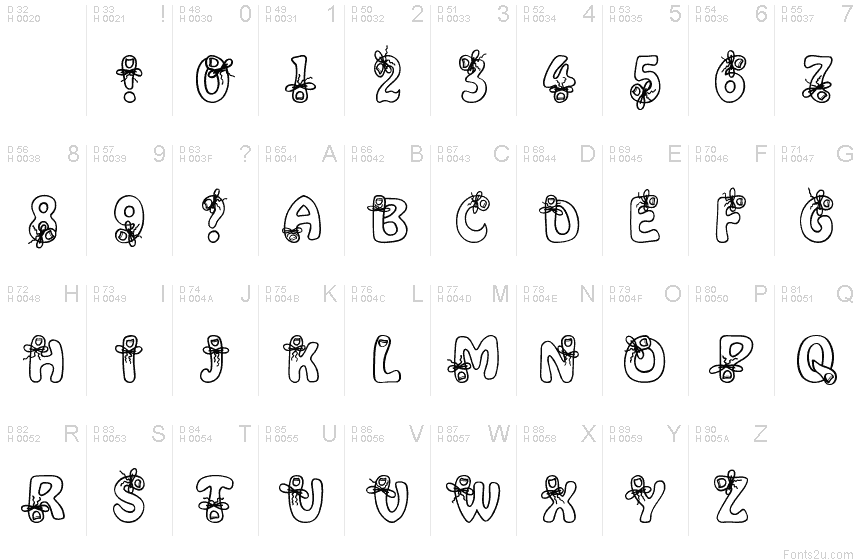
Alpha Remember
Alpha Remember font by Beeline Fonted by Lime is a free decorative display typeface that buzzes with playful, hand-drawn energy. Each rounded, bubble-like letter is wrapped with tiny doodled bees and loopy trails, giving text a whimsical, storybook feel. The light outline and airy spacing keep it readable, while the buzzing details add a fun sense of motion and personality.
Using Alpha Remember, your titles instantly feel kid-friendly and imaginative, so it shines on classroom posters, children’s book covers, birthday invitations, educational games, stickers, and playful branding. This free font works best at larger sizes where the bees can be clearly seen; pair it with a simple rounded sans serif for body text to keep layouts clean and balanced.